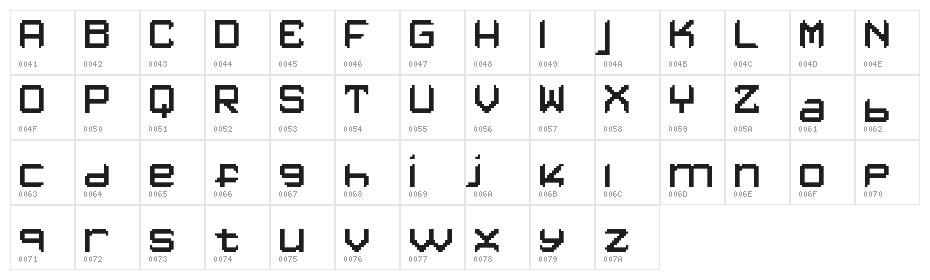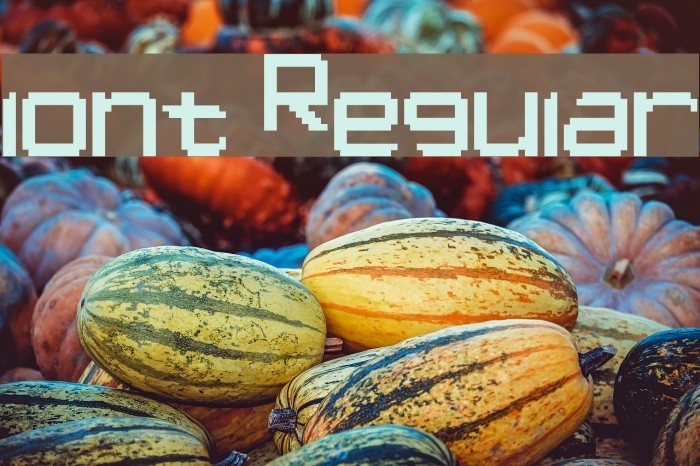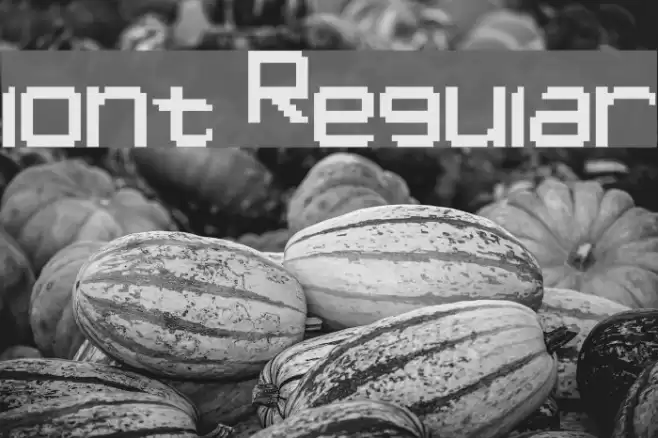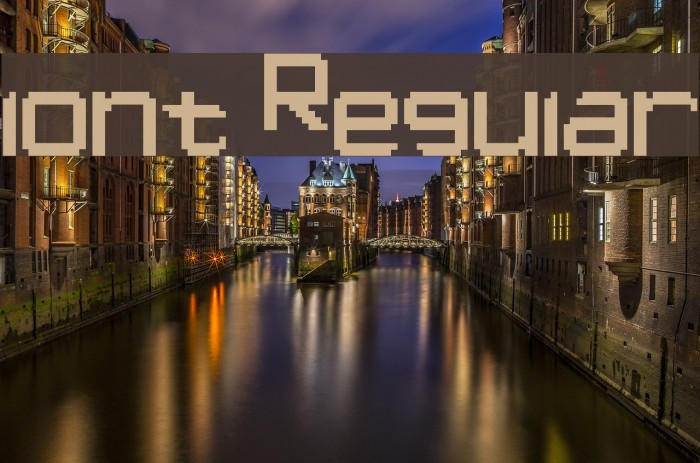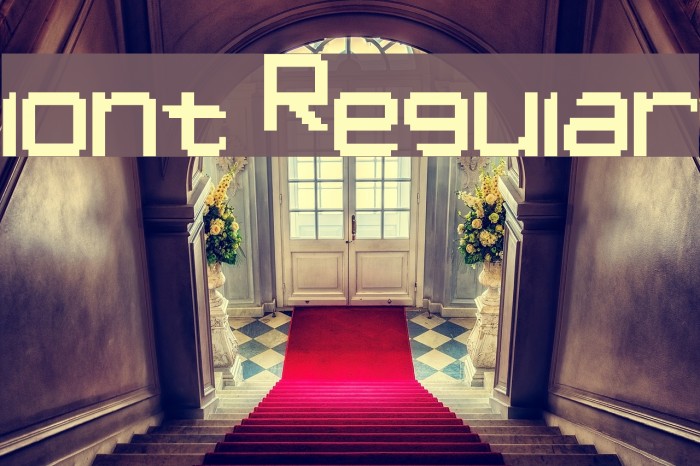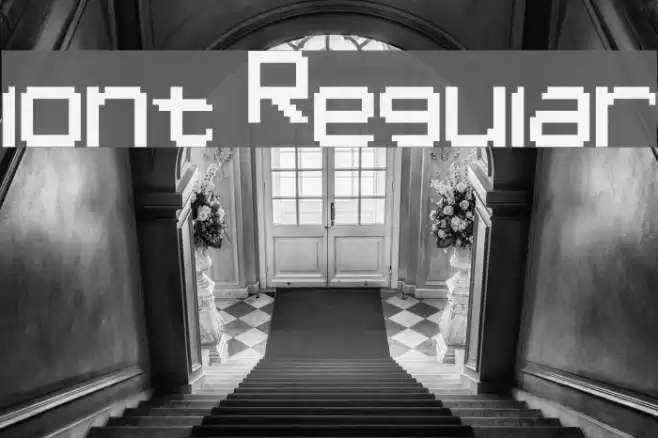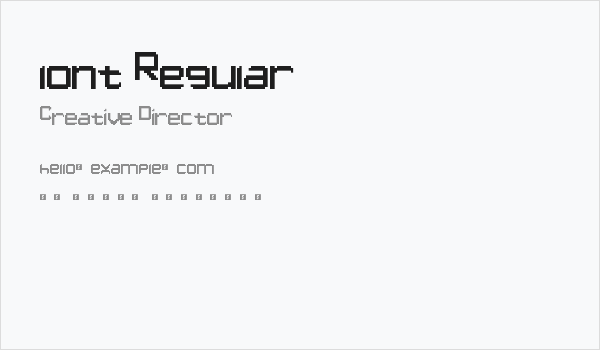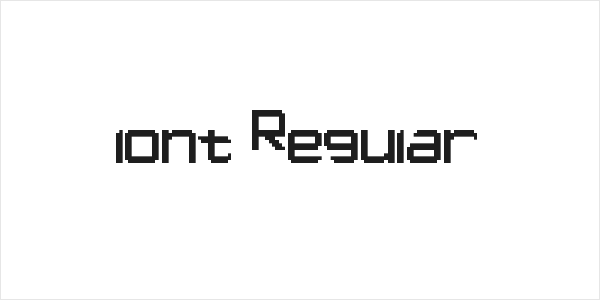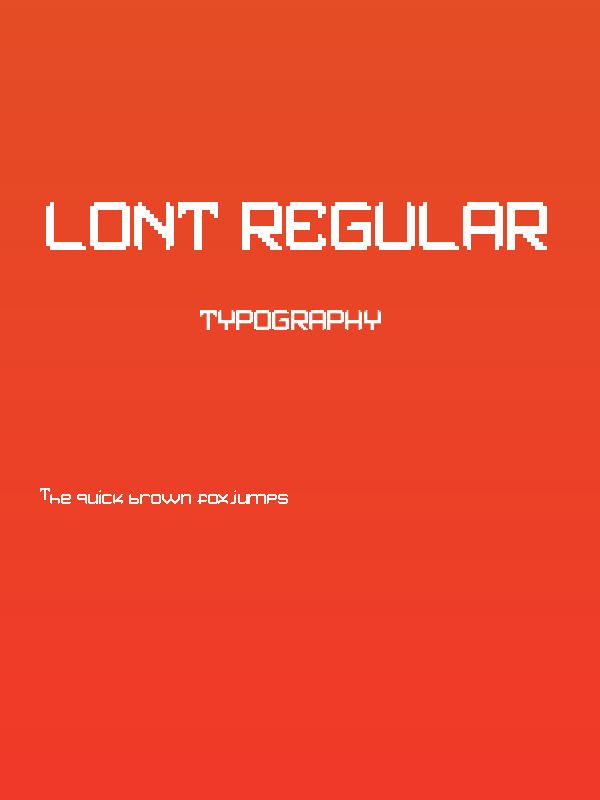
lont Regular Font
lont Regular Description
This font features a pixelated, blocky design reminiscent of early digital displays and retro video games. The characters are uniformly structured with sharp, angular edges, giving it a distinctly digital and geometric appearance. The uppercase and lowercase letters maintain a consistent height and width, contributing to a monospaced feel. The numerals and special characters follow the same design principles, ensuring uniformity across all glyphs. This style is ideal for projects that aim to evoke nostalgia or a tech-oriented theme.
| Use Case | Logos, Headlines, Digital Art |
| Proposed Projects | Ideal for retro video game graphics, tech-themed posters, digital art projects, and any design requiring a nostalgic digital touch. |